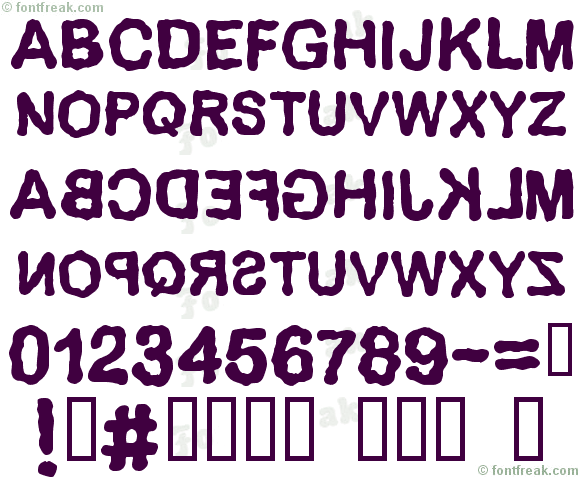
Delirium
Delirium by Pizzadude is a captivating display font that brings a unique flair to any design project. This font falls into the decorative category, characterized by its irregular, hand-drawn appearance that evokes a sense of whimsy and creativity. The stroke weight varies throughout the characters, providing a dynamic visual experience, while the contrasting forms create an engaging interplay of boldness and playfulness. The spacing between letters is loose, enhancing the font's casual, approachable feel.
Delirium is ideal for a variety of creative applications. It works brilliantly for movie posters, where its bold presence can capture attention and convey a sense of drama. Additionally, this font is perfect for restaurant menus that aim to project a fun and inviting atmosphere. It can also be used effectively in children’s book covers, where its playful nature resonates with younger audiences. Graphic designers will find it an excellent choice for promotional materials, such as flyers and social media graphics, allowing them to stand out in a crowded marketplace. Small business owners looking to establish a distinctive brand identity will also benefit from incorporating Delirium into their visual communications.
Targeting graphic designers, small business owners, and content creators, Delirium offers a fresh alternative to standard typefaces, encouraging creativity and innovation. The fact that it is available as a freeware license makes it accessible for everyone to use without any financial burden.
In conclusion, Delirium stands out for its distinctive, playful design that can elevate any project. Its versatility and unique aesthetic make it a must-have for those seeking a memorable typeface. Don’t miss the opportunity to enhance your designs with the Delirium font free download and let your creativity flow.